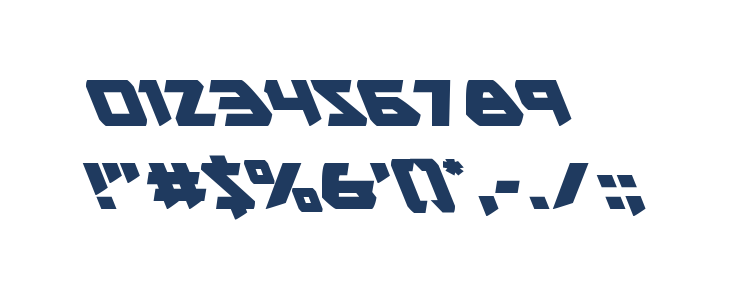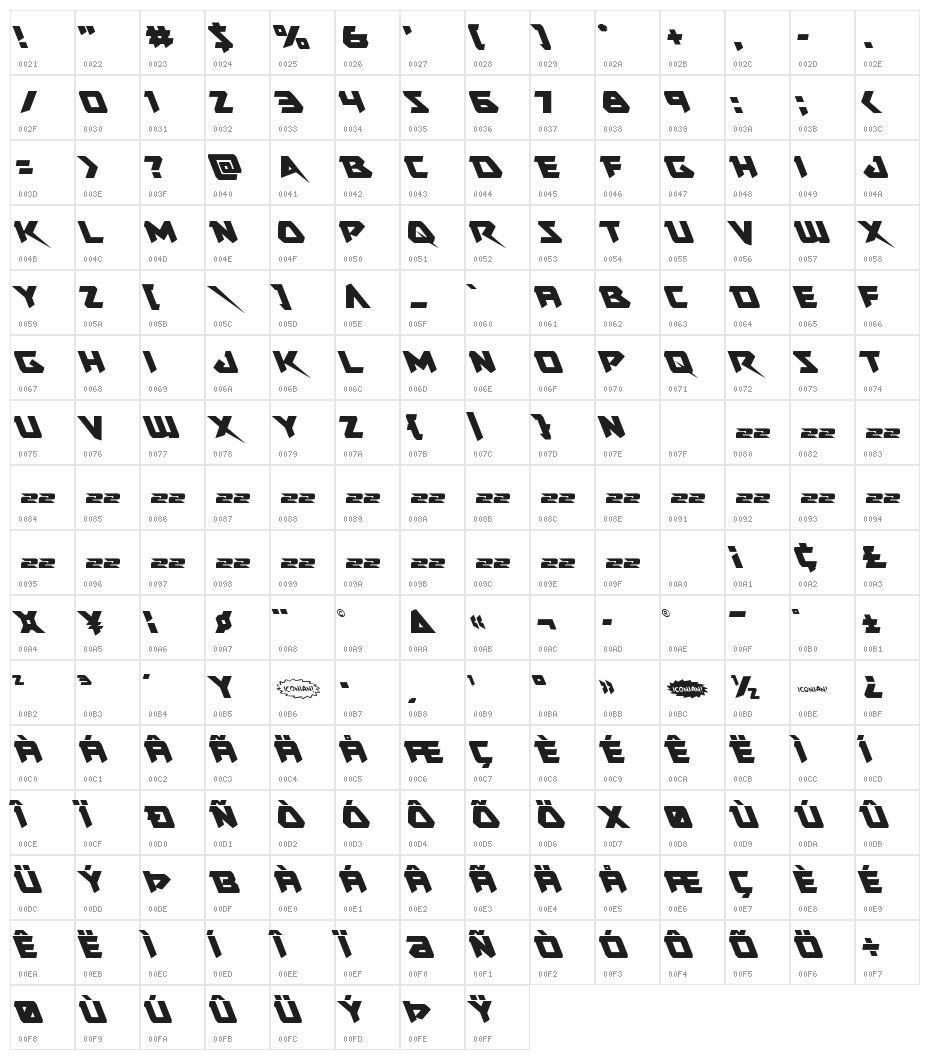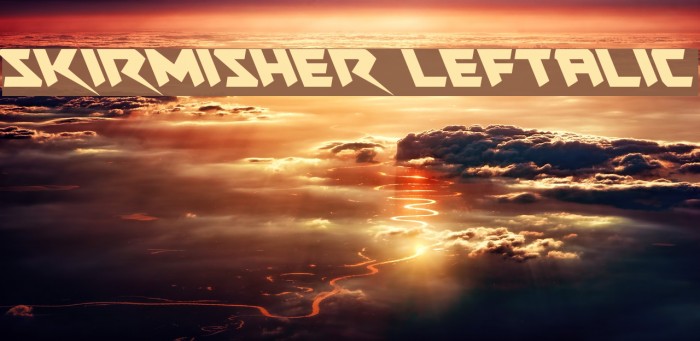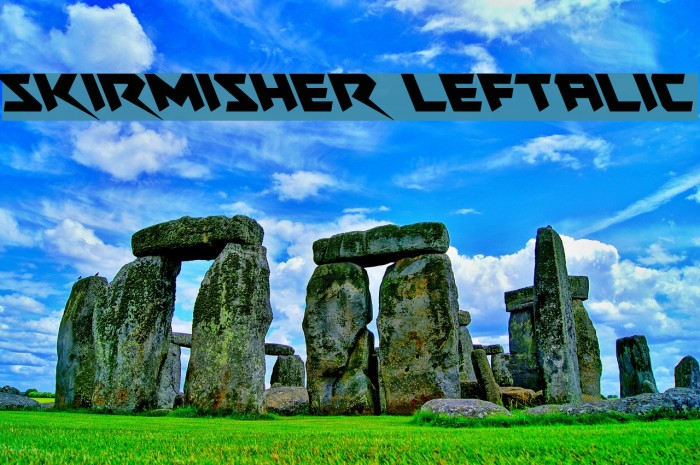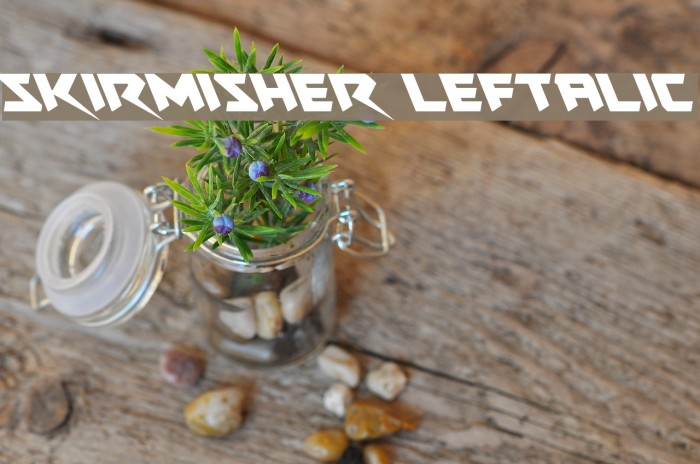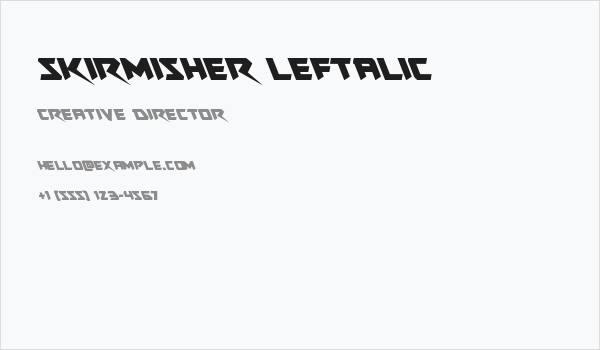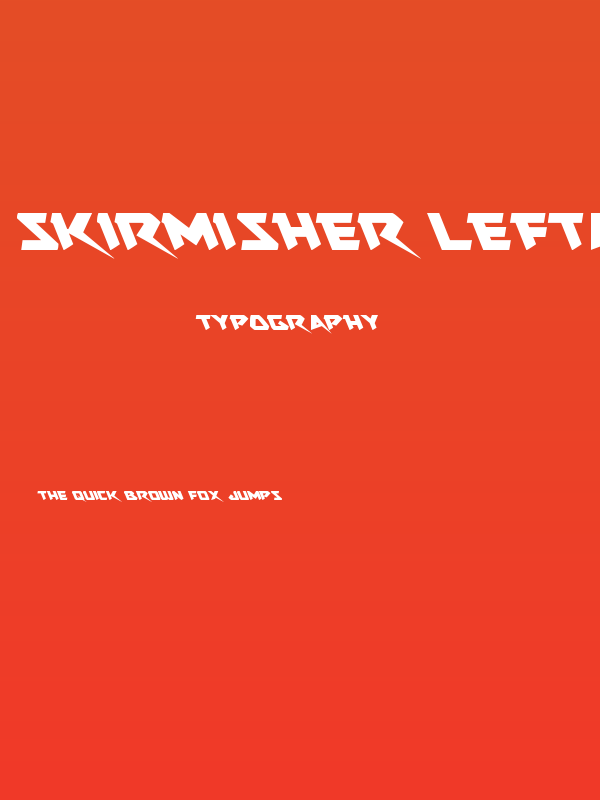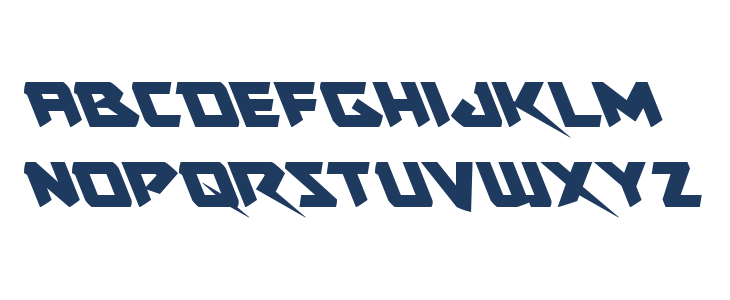
Skirmisher Leftalic Font
Skirmisher Leftalic Description
This font features a bold, angular design with sharp, geometric edges that give it a dynamic and aggressive appearance. The characters are slanted, adding a sense of motion and energy. The uppercase and lowercase letters maintain a consistent style, emphasizing sharp angles and bold lines. The numbers and special characters follow the same design principles, ensuring a cohesive look across all glyphs. The font's unique style makes it stand out, ideal for projects that require a strong visual impact.
| Overall Style | Modern, Aggressive |
| Proposed Projects | Ideal for video game titles, sports branding, action movie posters, and edgy graphic design projects. |